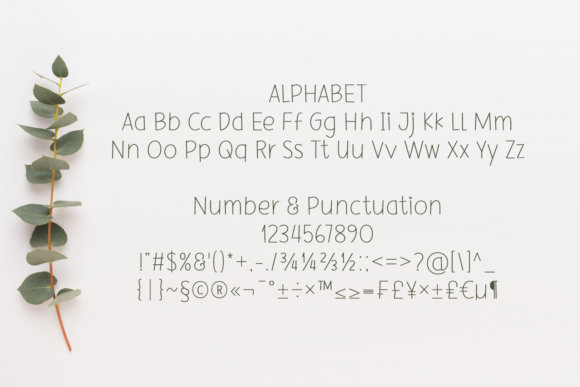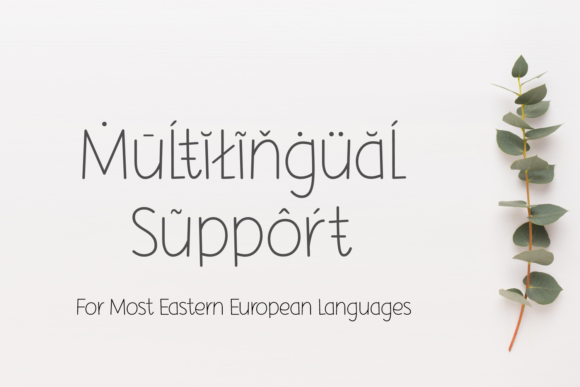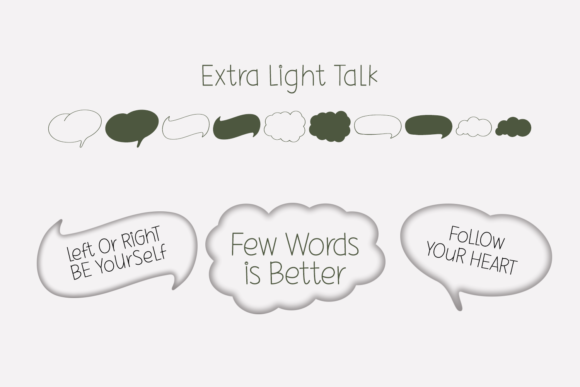
Introduction to Light Talk Font
Light Talk is a minimalist and simple handwritten font.
| 👤 Author | Jasm (7NTypes) |
Thin and friendly, this font will have an incredibly cute and cozy impact on each of your designs .
Key Features of Light Talk Font